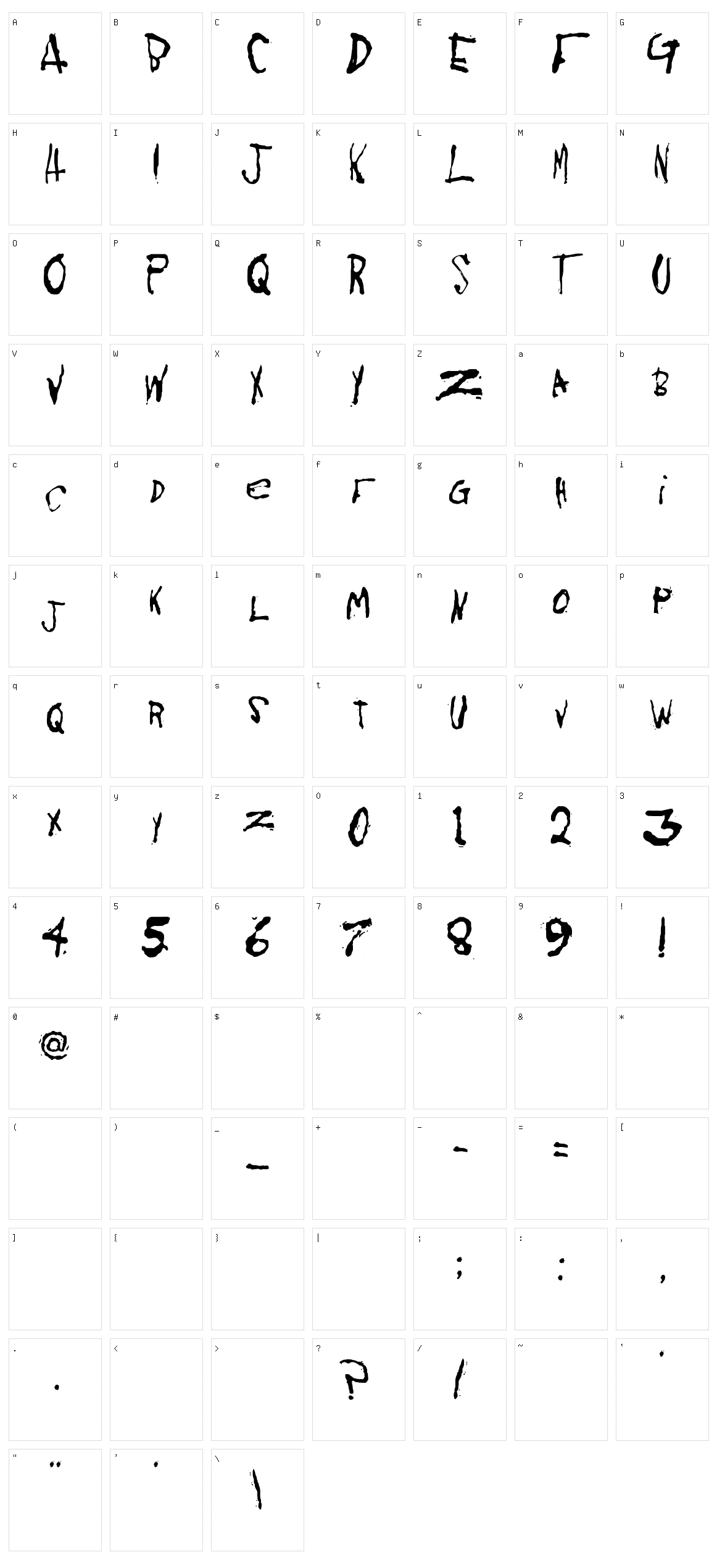
The free font KoRnNet.too.it is carefully designed by KoRnNet.too.it, showcasing a thoughtful balance of creativity and usability and falls under the Trash font style. When you download the ZIP file, it contains only 56.29 KB of font files, making it lightweight and quick to download. Please review the license details below to understand permitted usage and distribution rights. If license information is not available, we recommend using this font for personal projects only or contacting the author directly for commercial usage permissions.